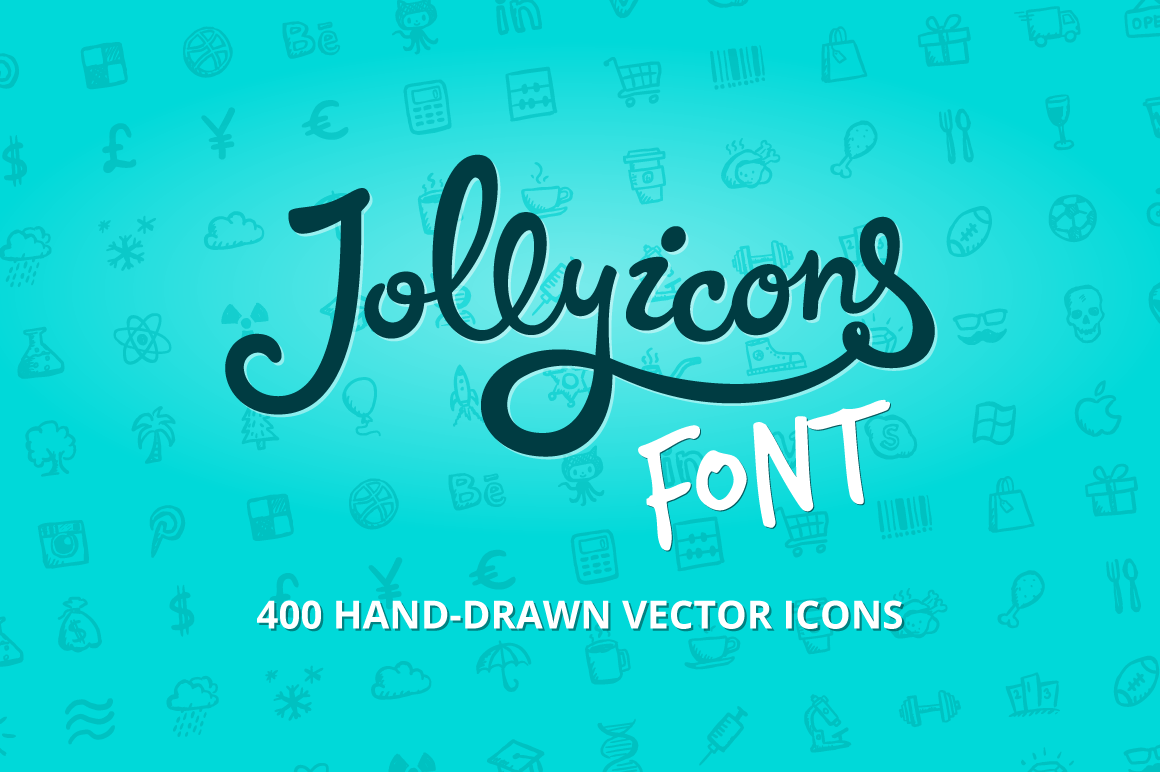
Jolly Icons Font
400 hand-drawn icons featured in Jolly Icons set are now available in icon font formats.
Icon font allows seamlessly add icons to web layouts and style each icon with CSS, saving time from generating sprites or editing the images.
Jolly Icons Font includes characters from the following categories: web, interfaces, technology, multimedia, weather, social networks, communication, e-commerce, food, leisure, etc.